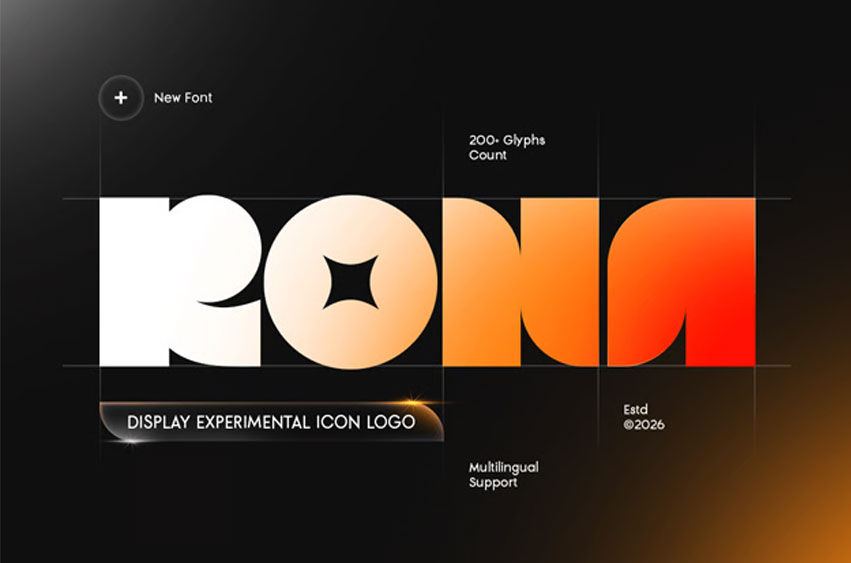
Rona Font
Rona Font Display Experimental Icon Logo Font is a creative display typeface designed to push the boundaries of modern branding. Inspired by experimental typography, abstract iconography, and contemporary design trends, Rona is built for projects that demand originality and visual exploration.
With its unconventional letterforms, icon-inspired shapes, and artistic construction, Rona delivers a bold and distinctive character that stands out in logo design and headline compositions. The experimental approach gives designers the freedom to create expressive and memorable brand visuals.
Rona Font Features
• Complete character set including uppercase, lowercase, numerals, symbols, and punctuation
• Experimental letterforms with icon-inspired design elements
• OpenType features included to support creative typography and design exploration
Rona is Perfect For
• Experimental logo and creative brand identity design
• Artistic and abstract visual concepts
• Creative studios and modern design projects
• Website headers and expressive typography layouts
• Marketing visuals and bold promotional materials
• Unique and unconventional design explorations
Whether you are developing an experimental brand identity, designing a unique logo concept, or creating art-driven visual communication, Rona gives your work a distinctive edge with expressive and innovative typography.